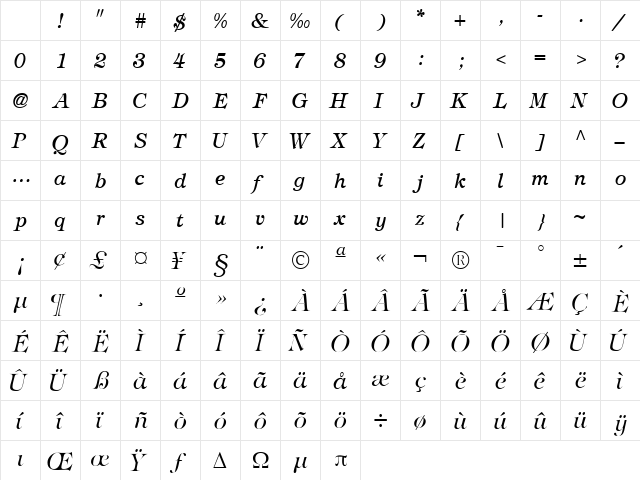
Complete SophisticateLightSSK Italic glyph index. Displaying only characters natively supported by SophisticateLightSSK Italic font.
SophisticateLightSSK is a composed and adaptable typeface that performs quietly and consistently across a wide range of design contexts. The slanted form adds forward momentum and visual energy. Its slender proportions lend an understated elegance to any composition.